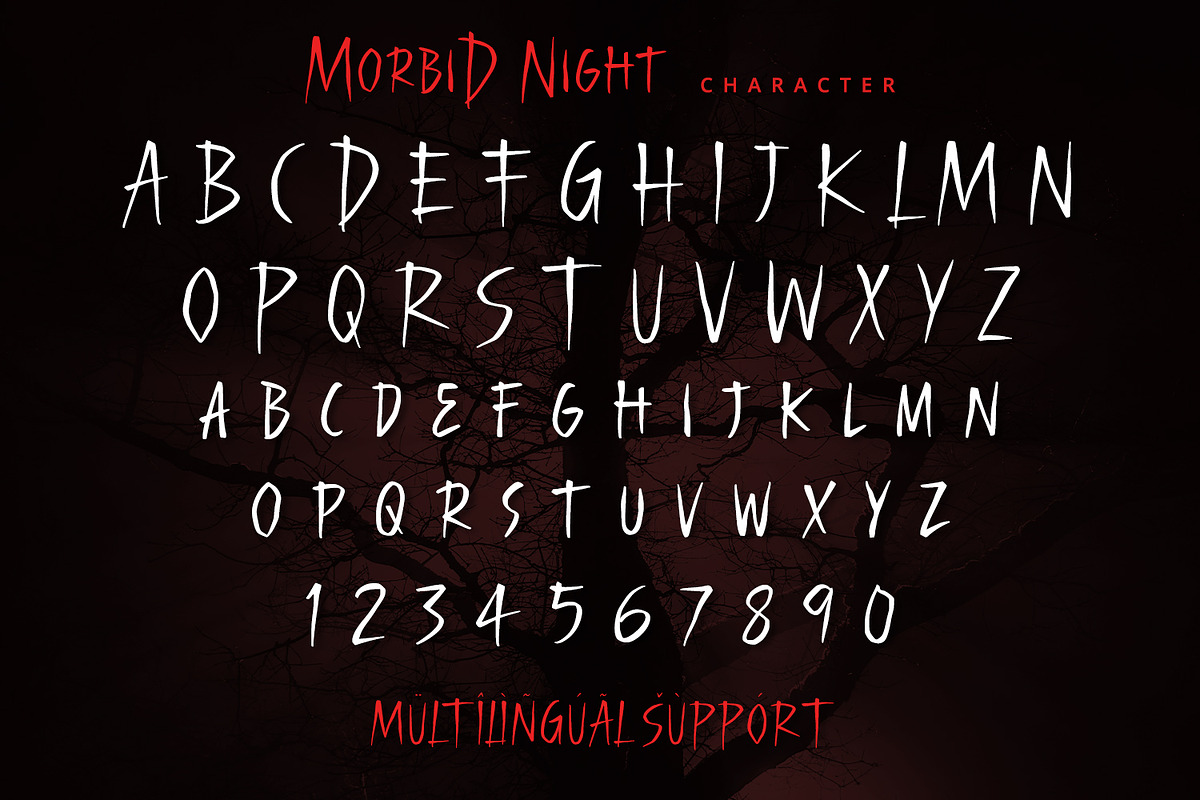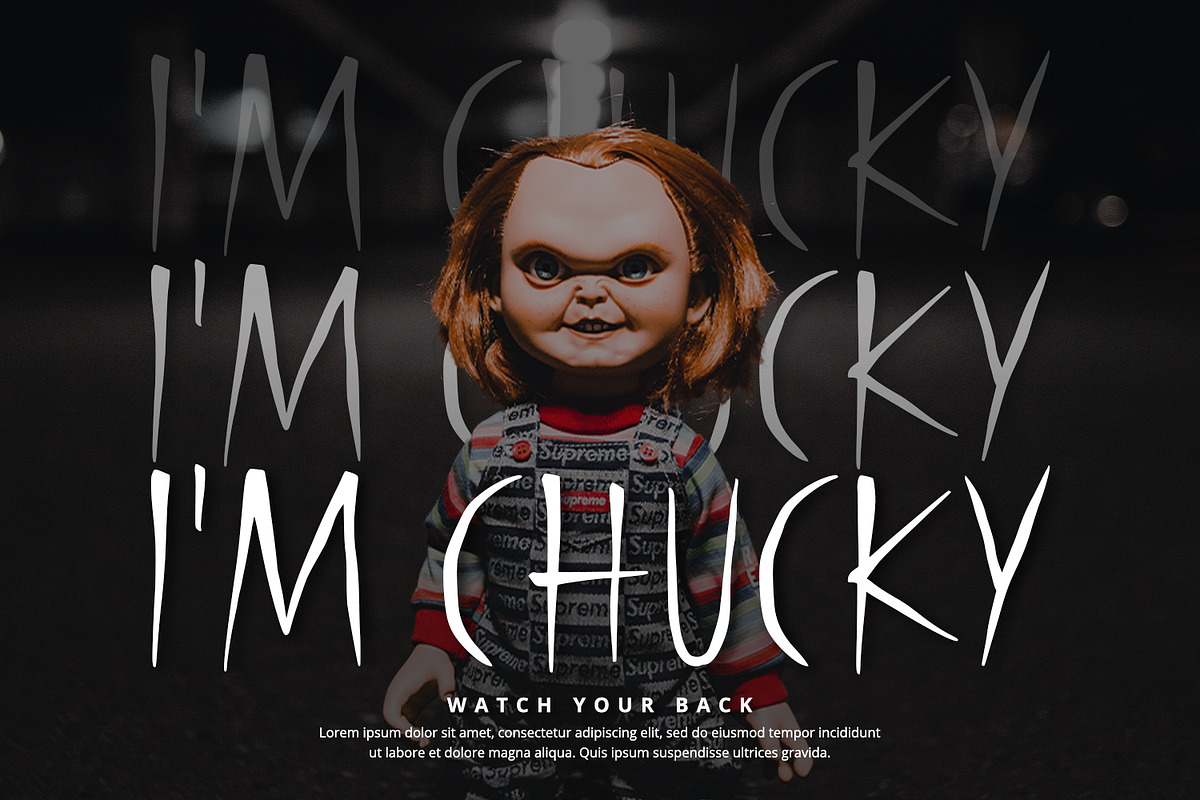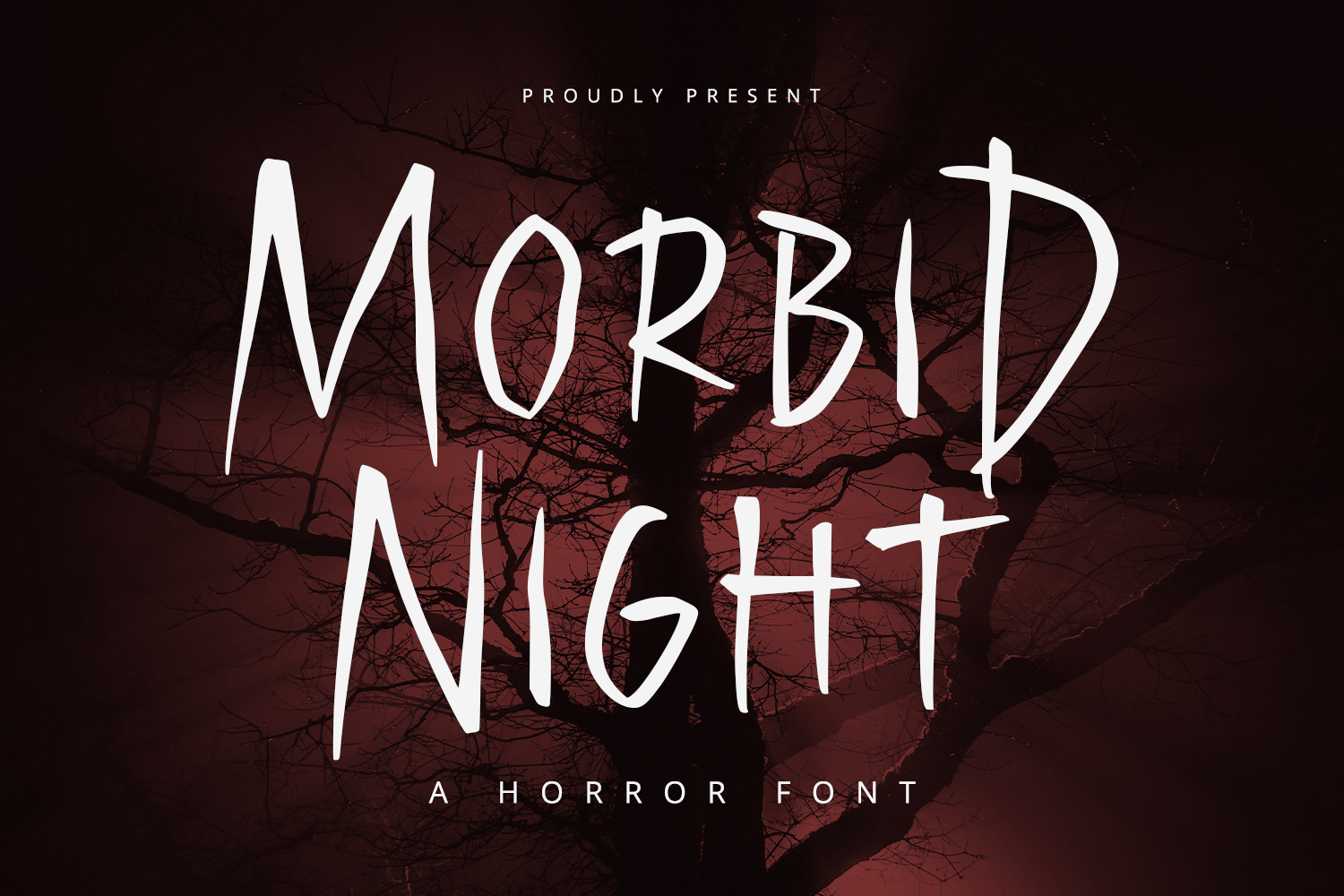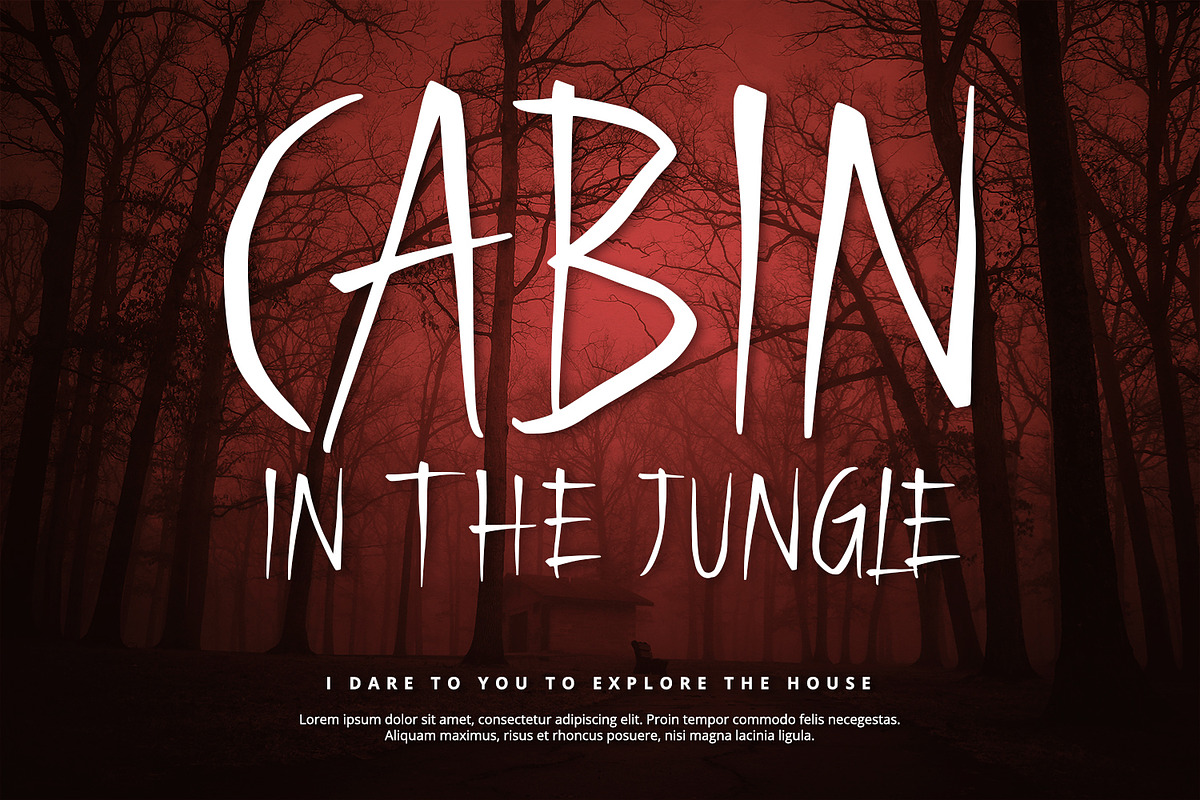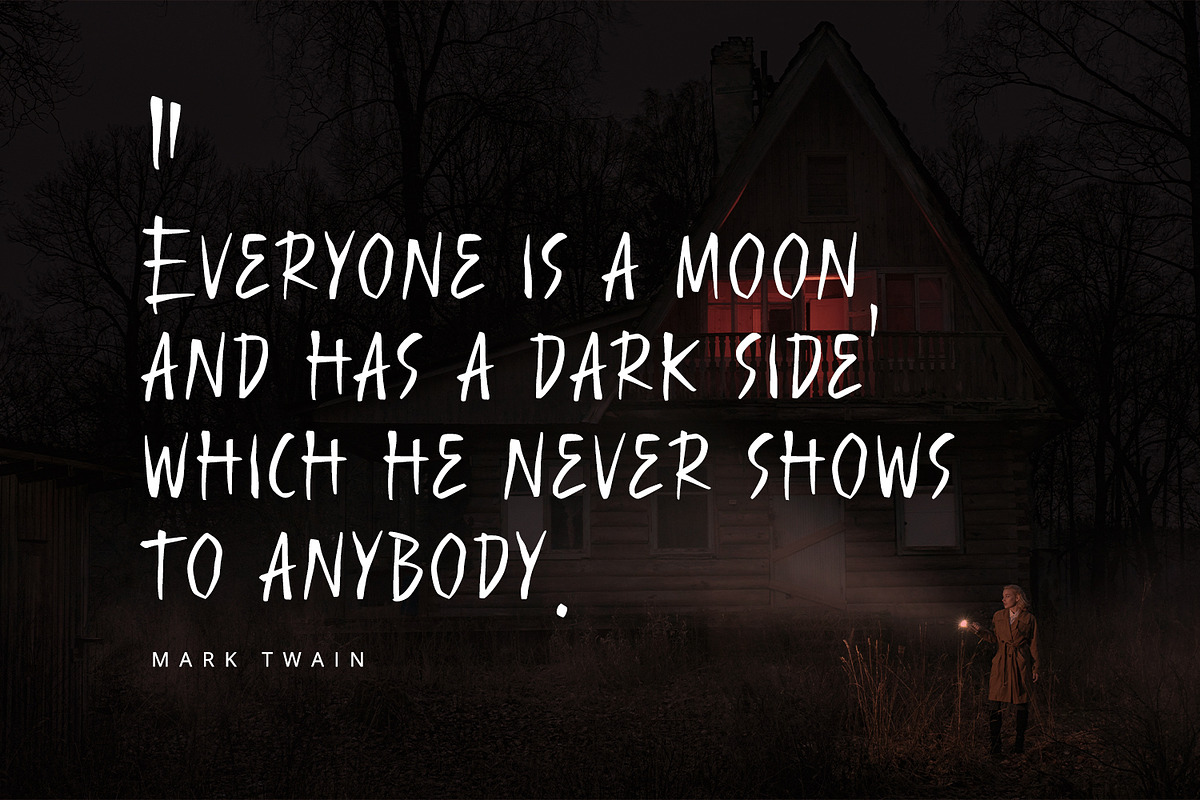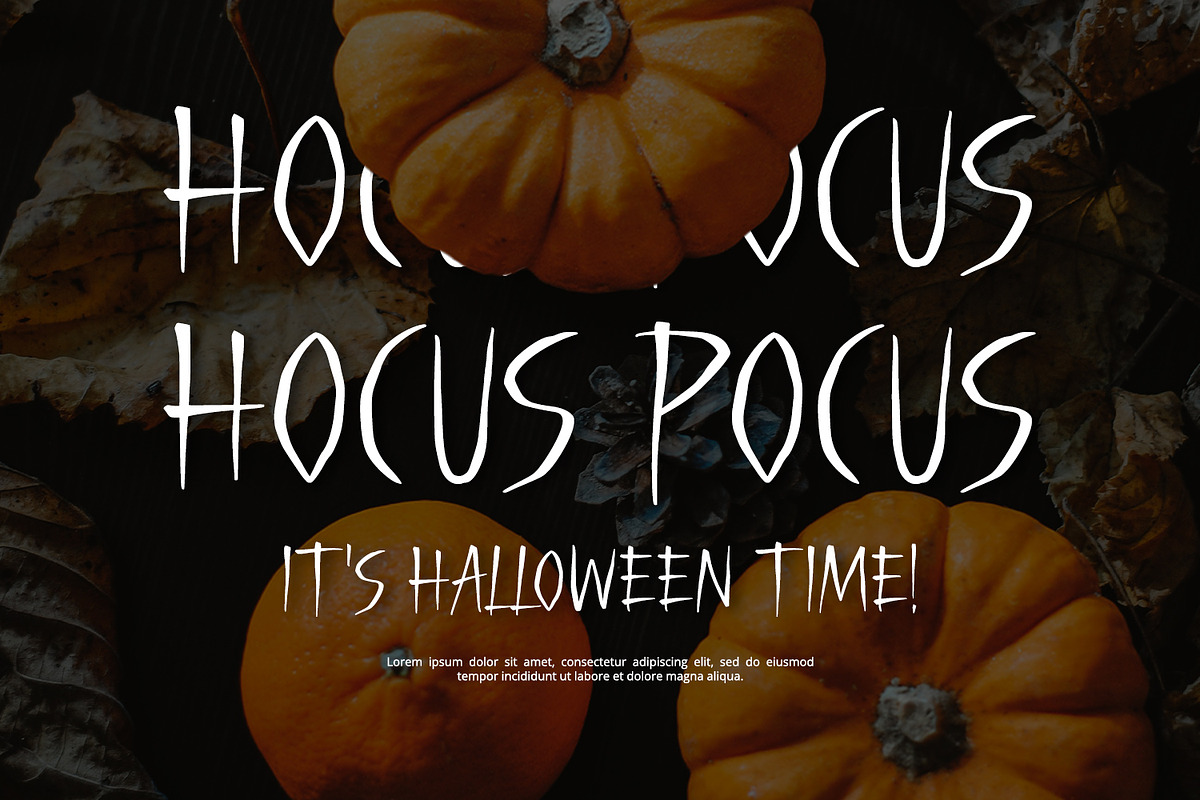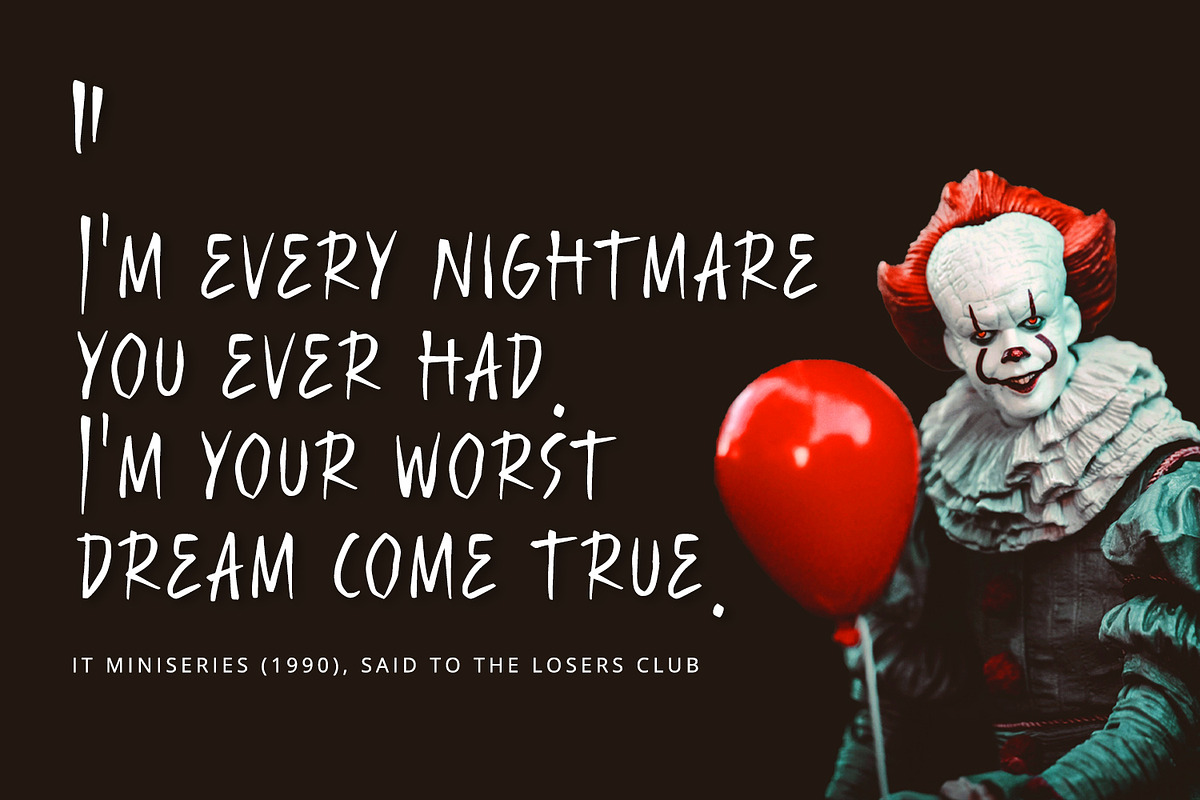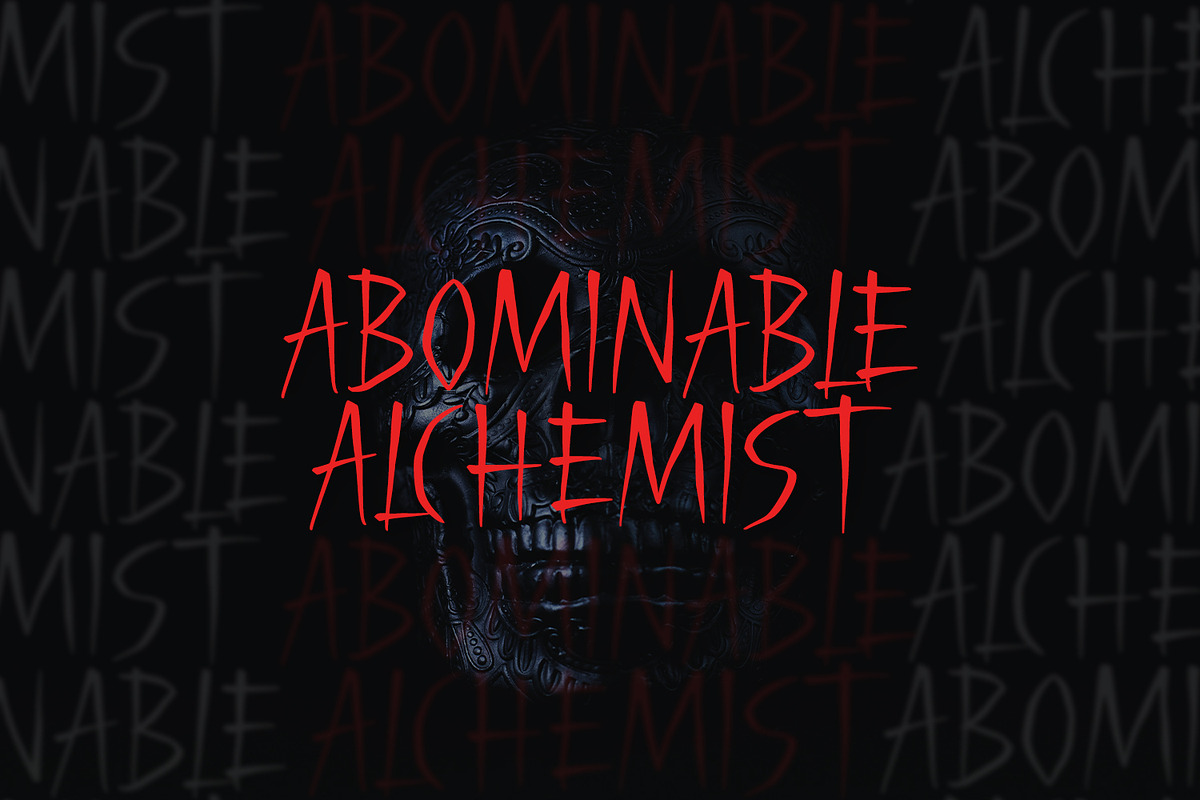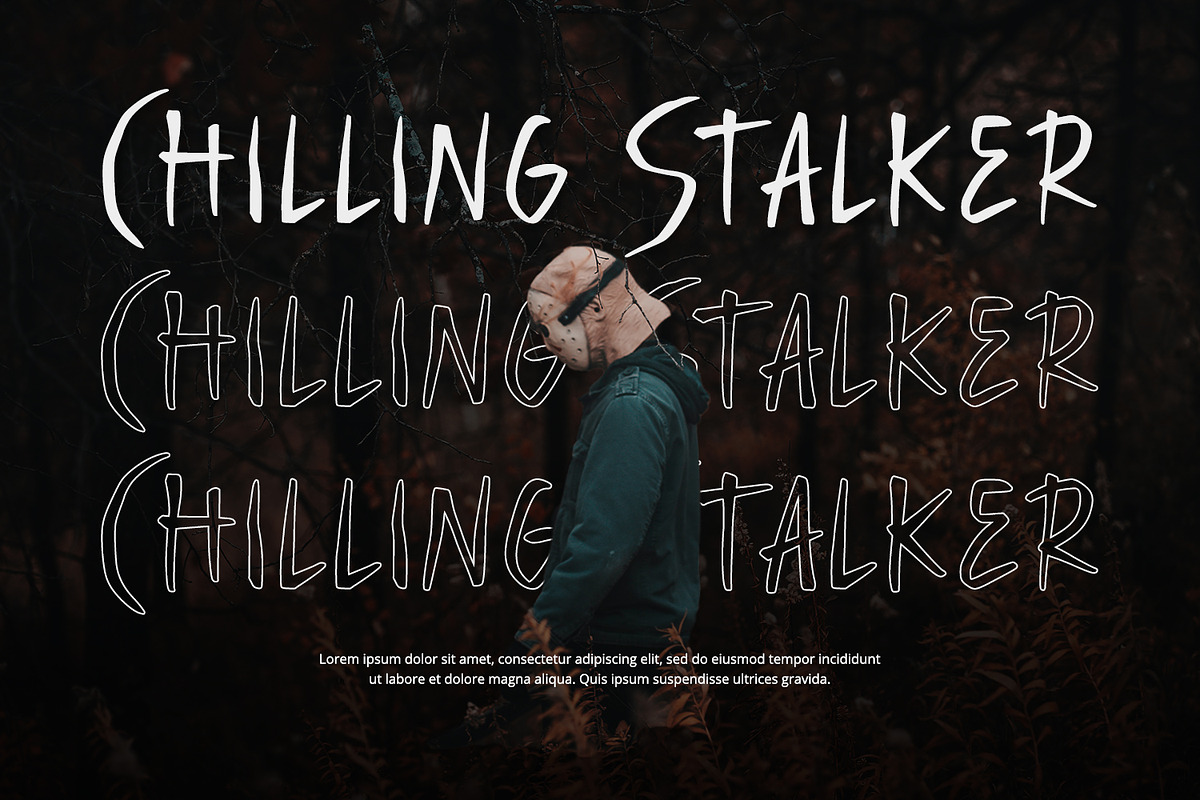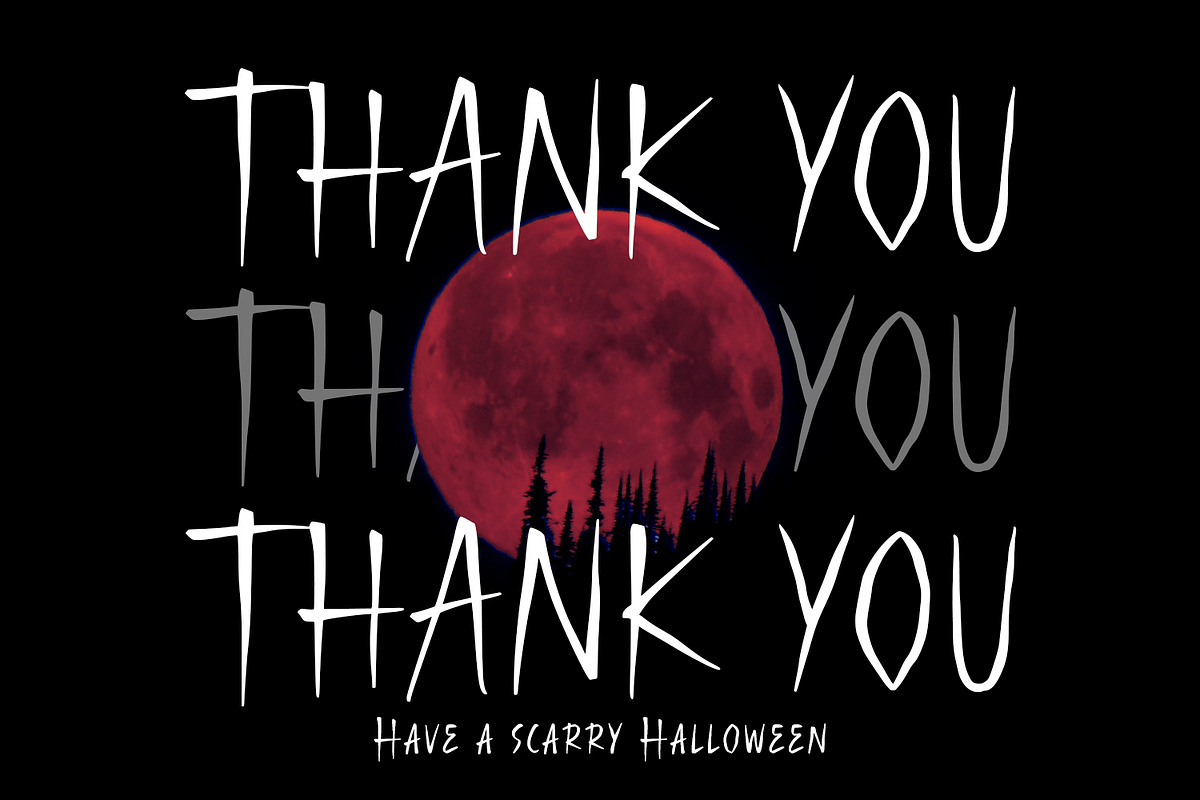
Morbid Night - Display Font
Morbid Night is a display horror font with unique and modern feels. It will be perfectly used for Branding, Logo Design, Lettering, Logotype, Clothing, Poster, magazine, packaging, posters, shopping bags, t-shirts, book covers, photography, special events and other design project.